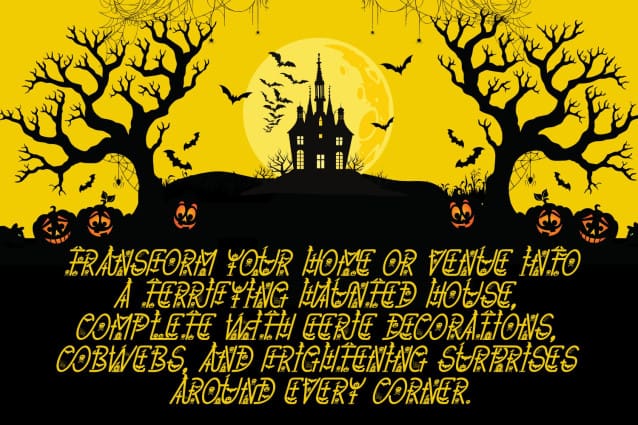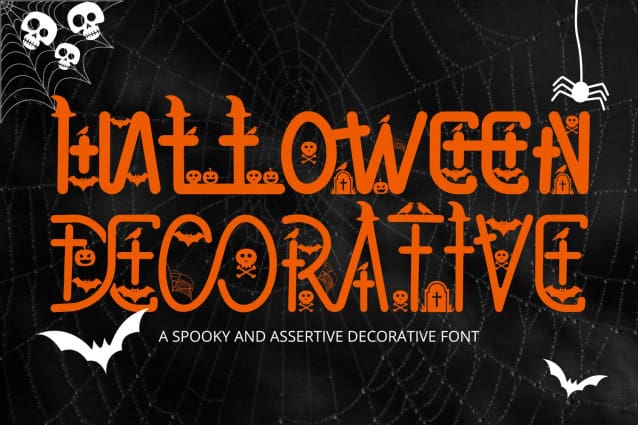
Halloween Decorative Font
Halloween Decorative Font is a vintage and spooky display font. It’s a display font inspired by twig of the halloween tree. It’s a whimsical font with an irregular baseline that allows you to create lovely designs in a matter of seconds! It can be used as a regular font or as a monogram. Each letter has been thoroughly cleaned, reducing the number of nodes to a minimum.
Halloween Decorative was built with OpenType features and includes 100 ligatures, alternate, numbers, punctuation, and it also supports other languages.